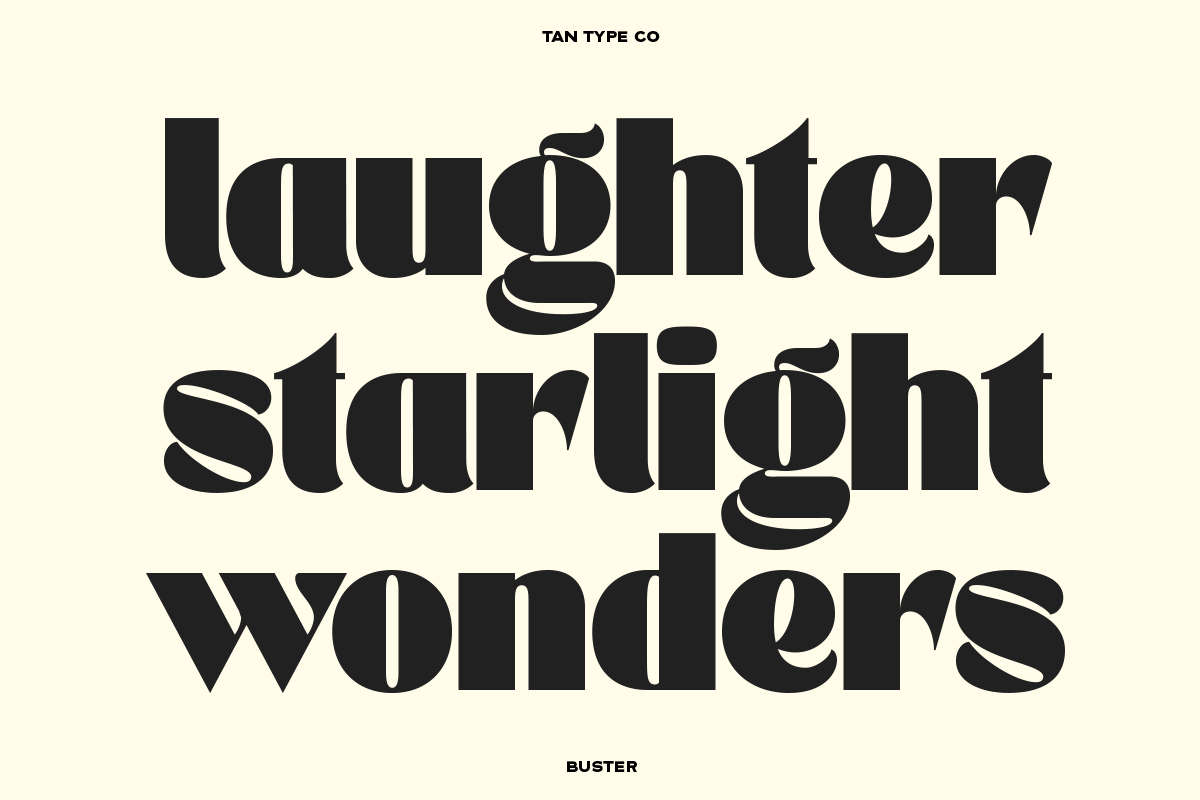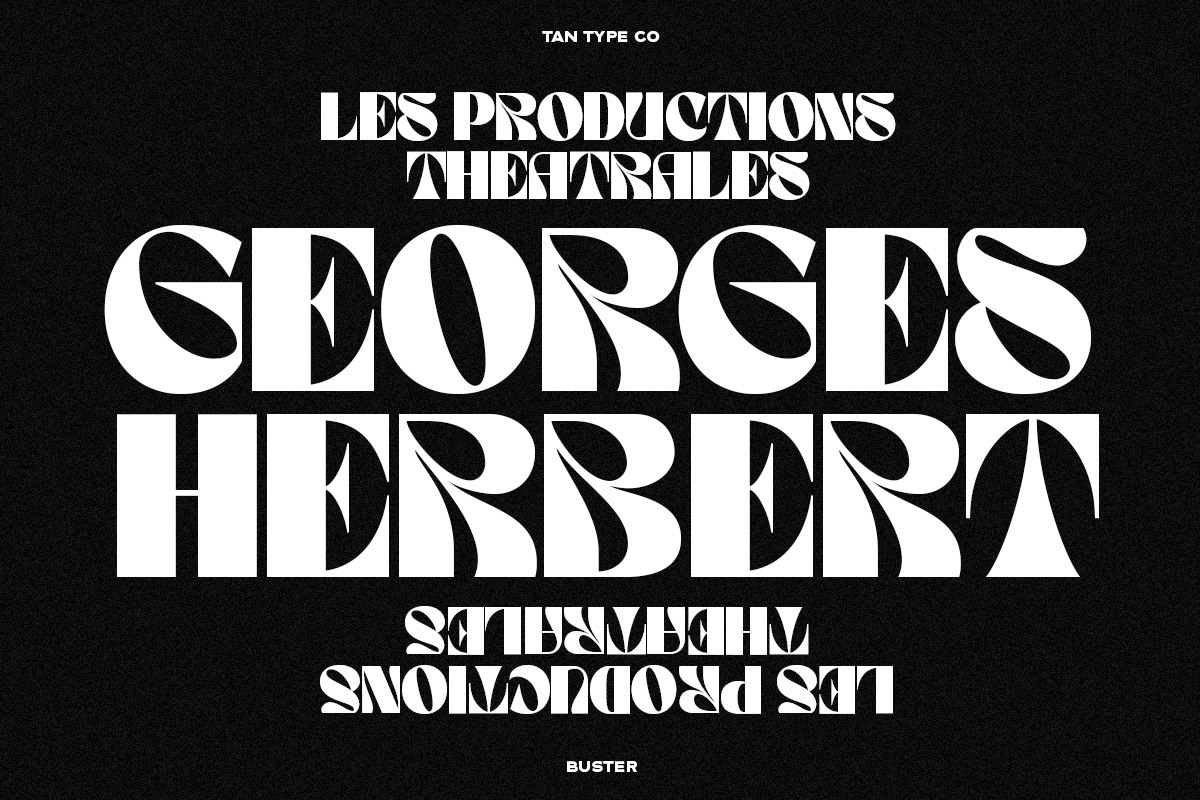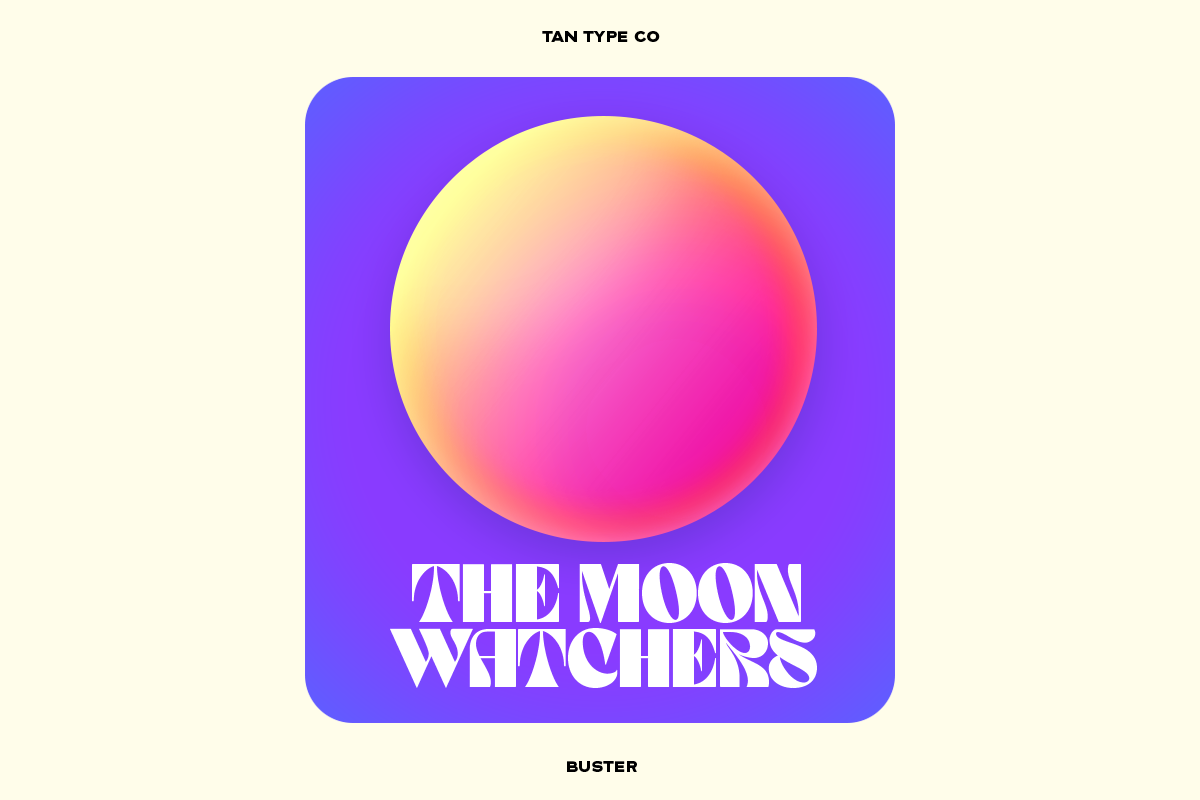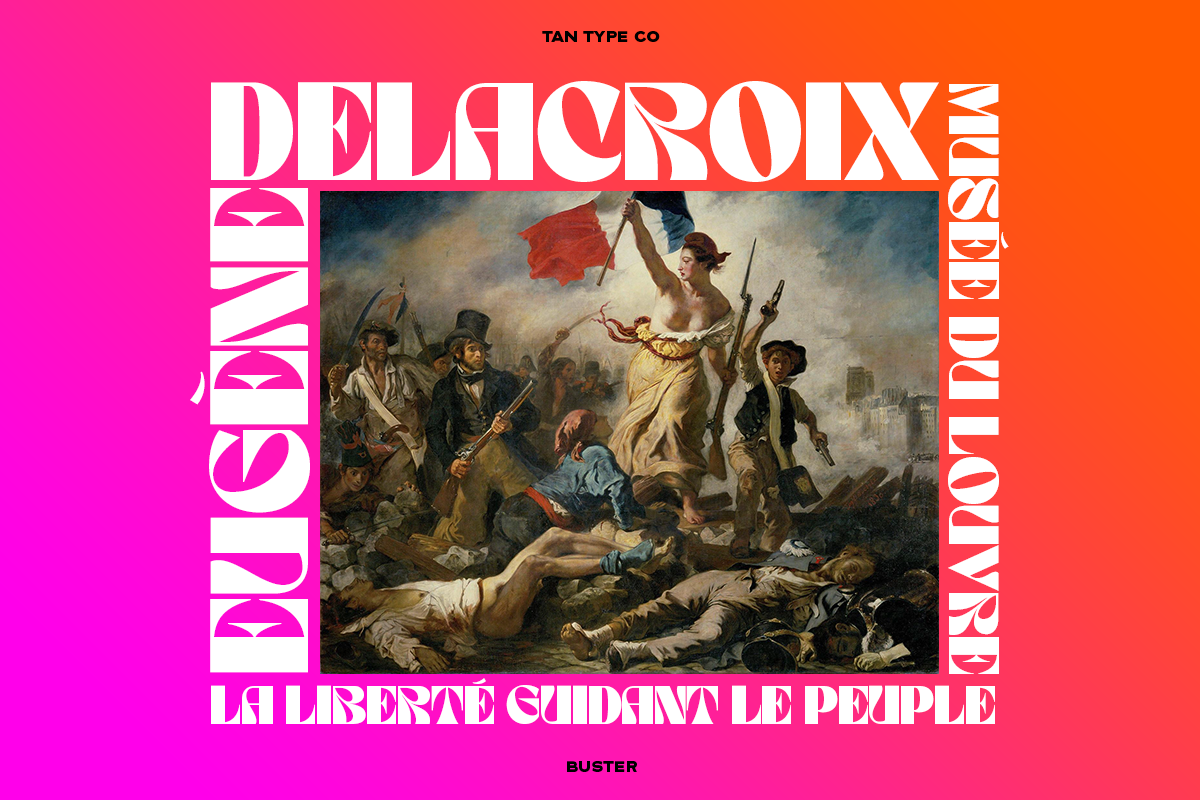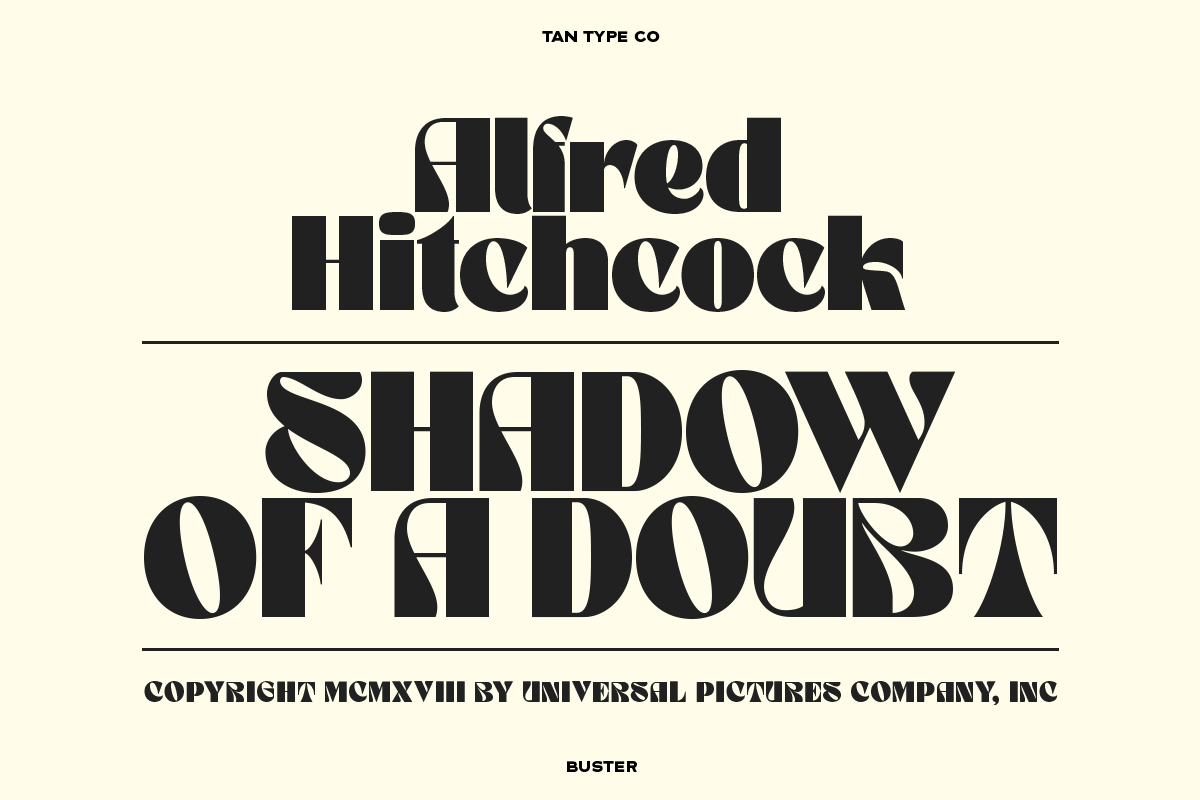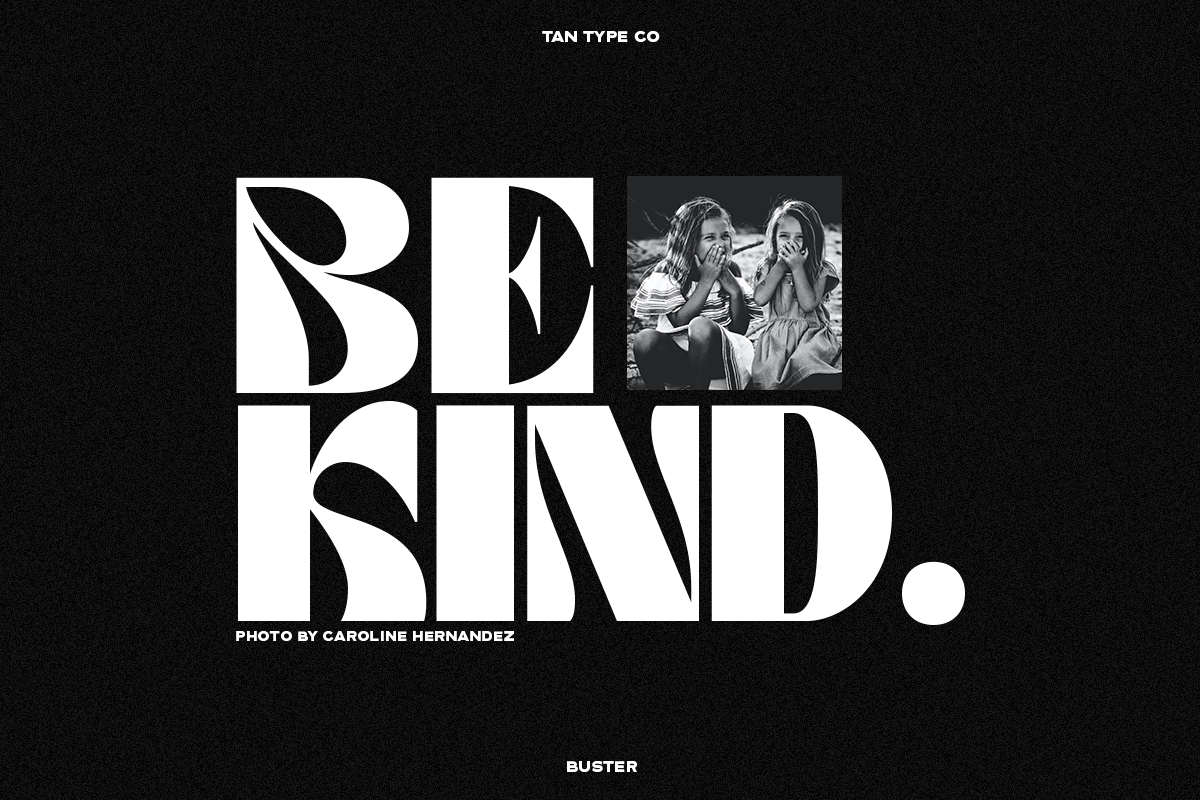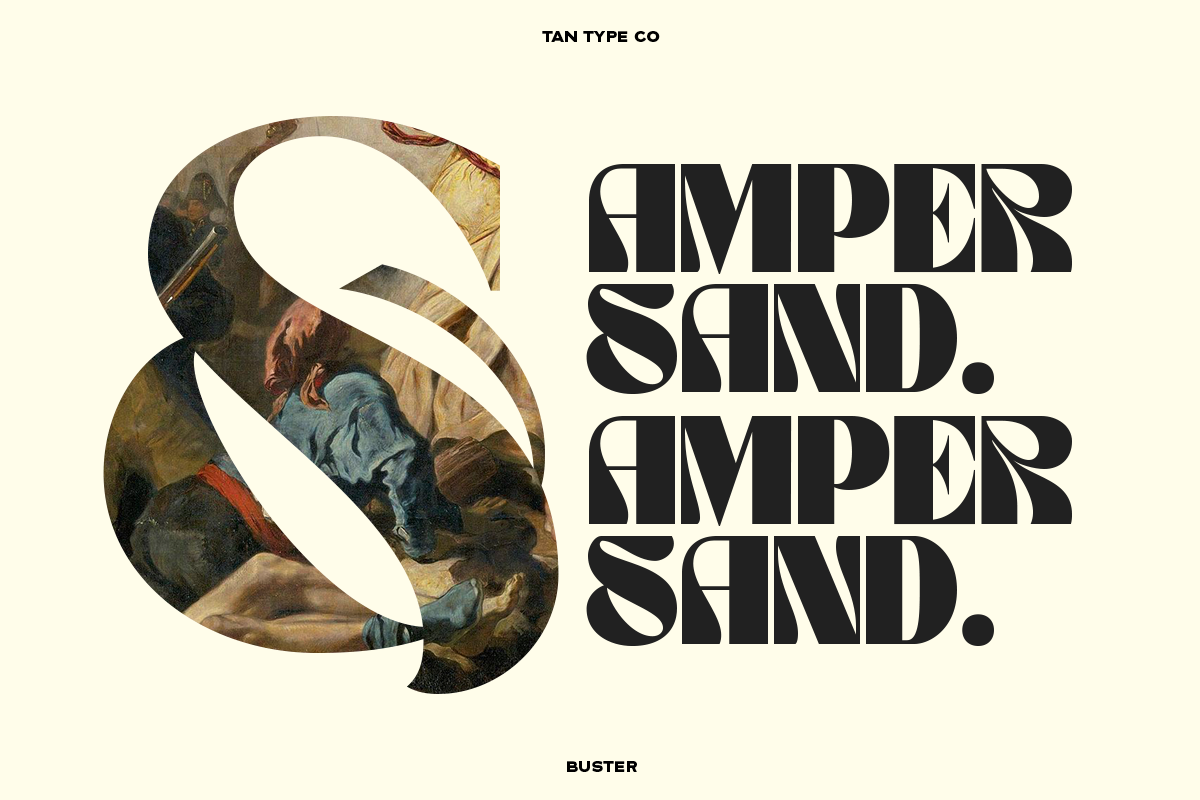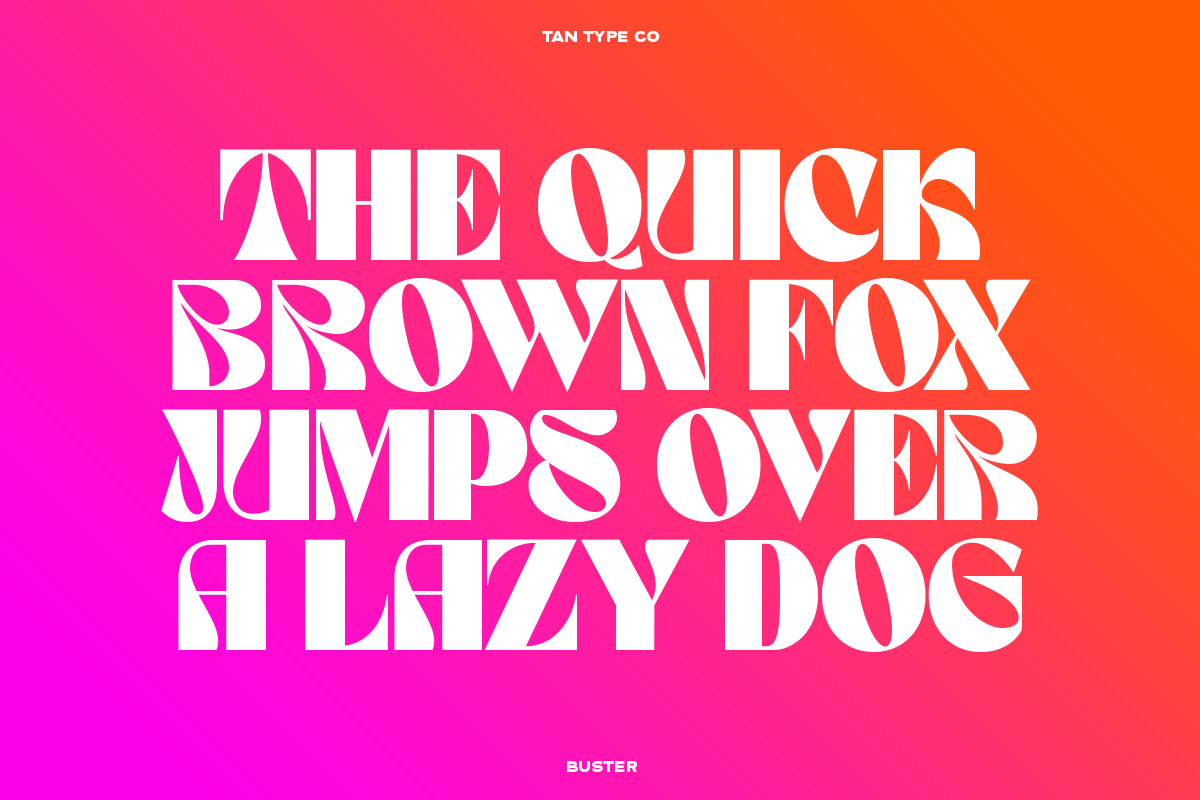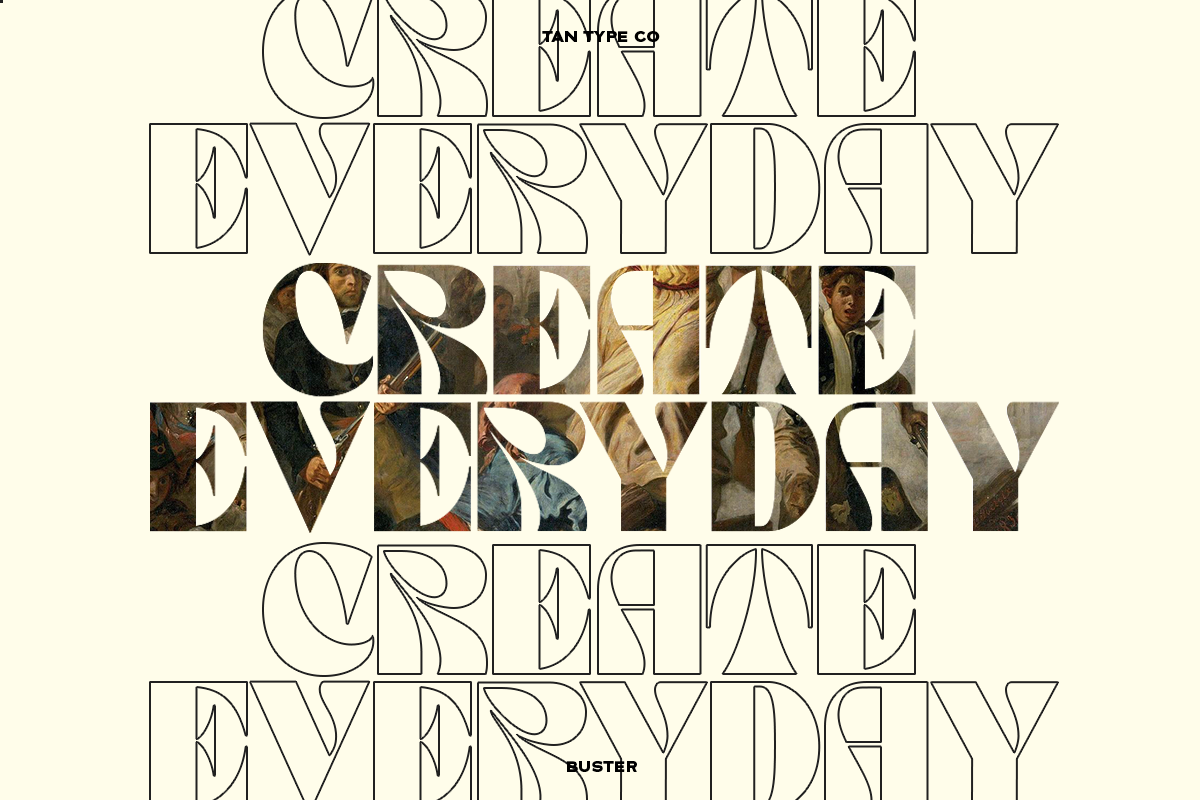
BUSTER is a bold and kinetic display typeface with dramatic curves and striking contrast. Its modular, boxy letterforms are packed with expressive flair, combining retro-futuristic styling and sculptural rhythm for a truly high-impact visual identity.